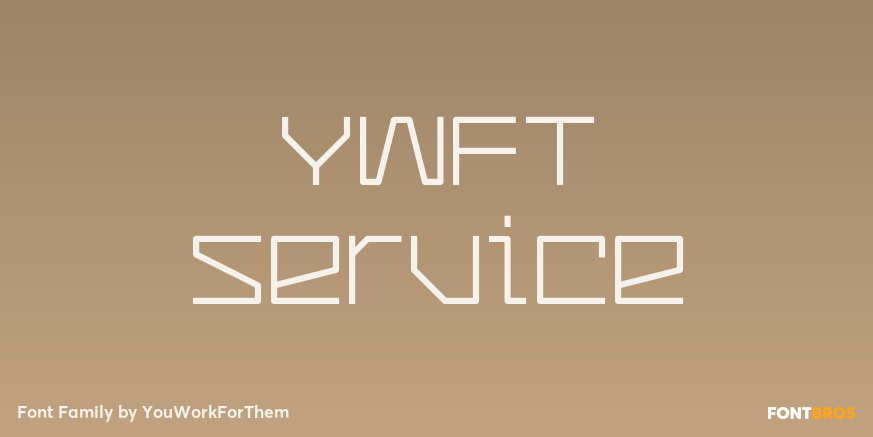
YWFT Service
About YWFT Service
YWFT Service is a display typeface, strongly influenced by electronic music during the late 90s and early 00\’s. YWFT Service began as custom-drawn lettering on flyers for various music labels and DJs. Despite its underground origins, however, YWFT Service…